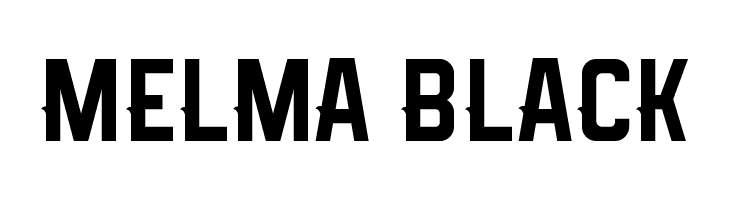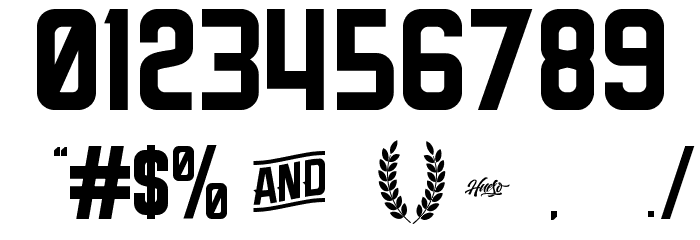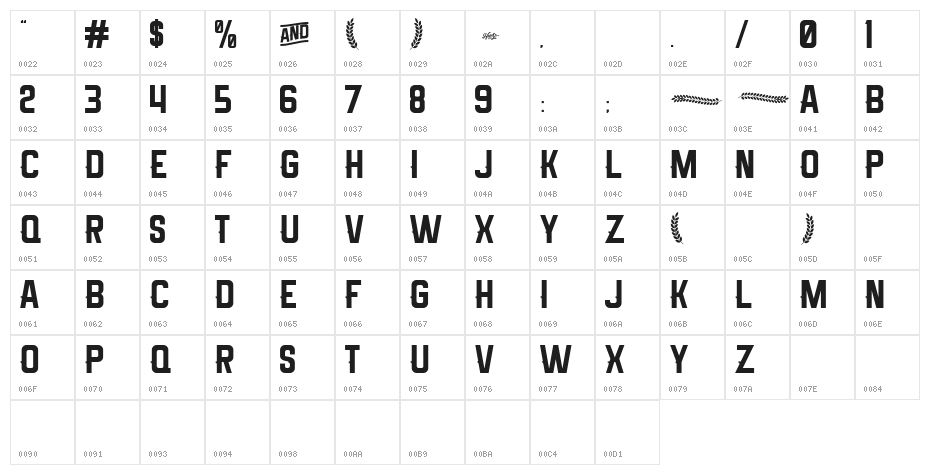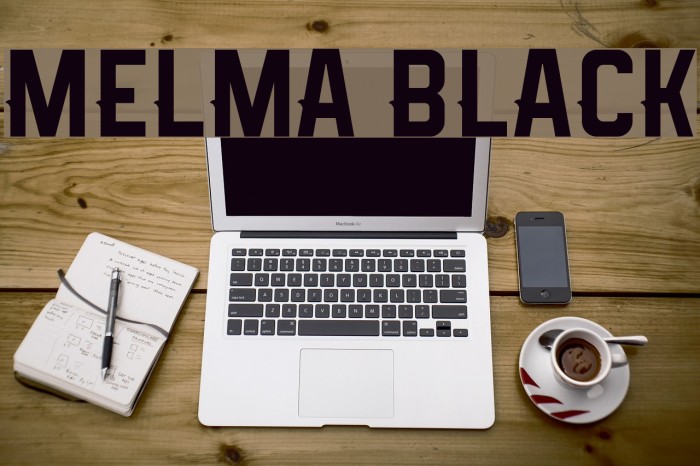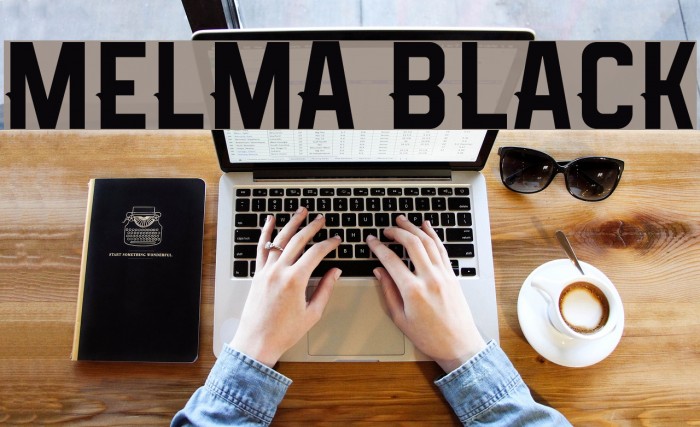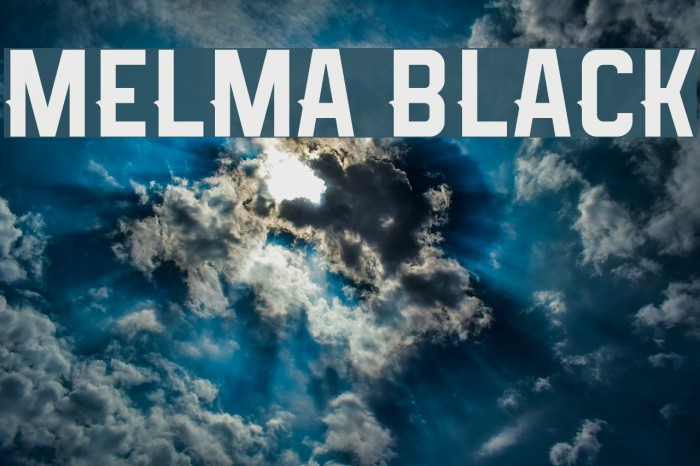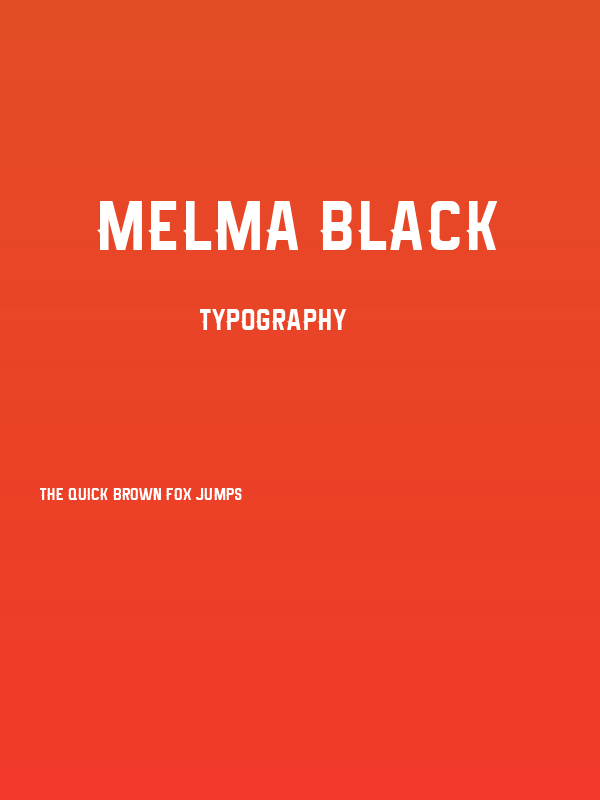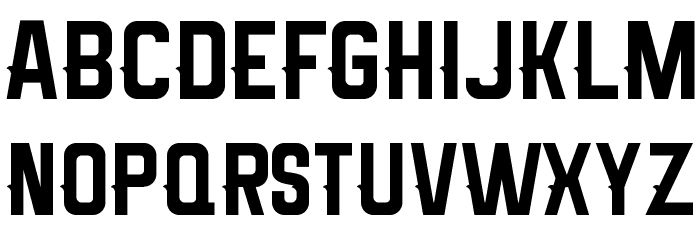
Melma Black Font
Melma Black Description
This font features a bold and impactful design, characterized by its strong geometric shapes and thick strokes. The uppercase letters are particularly striking, with a uniform height and width that create a sense of stability and strength. The numbers and special characters maintain this boldness, ensuring consistency across all glyphs. The font's design is modern and clean, making it suitable for a variety of applications where a strong visual presence is required. Its high contrast between the thick strokes and the negative space enhances readability and visual appeal.
| Proposed Projects | Ideal for branding, headlines, posters, and any design requiring a strong, impactful typeface. |